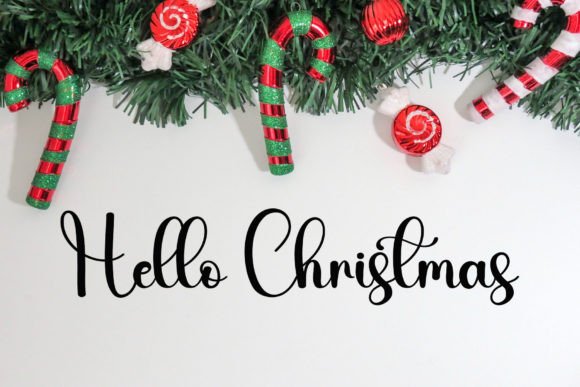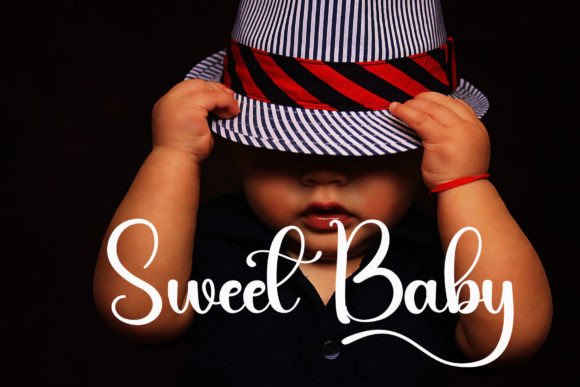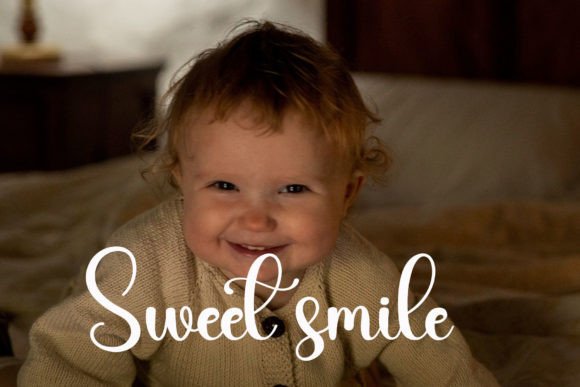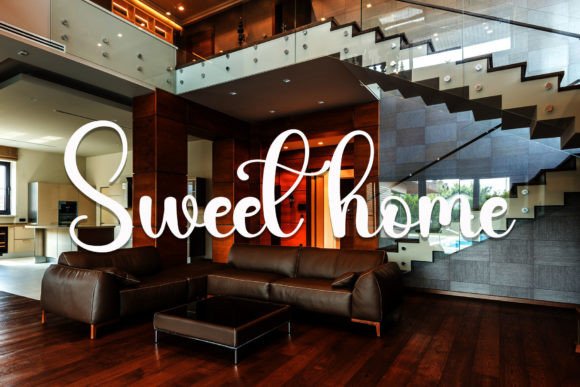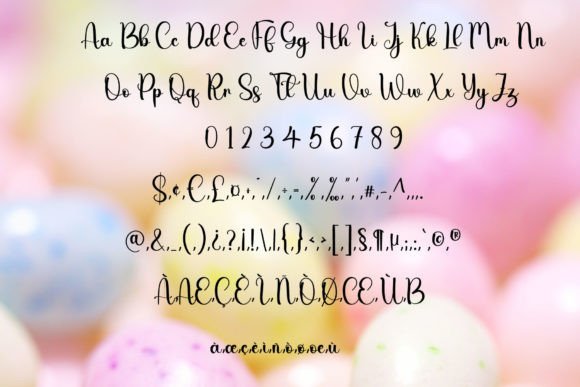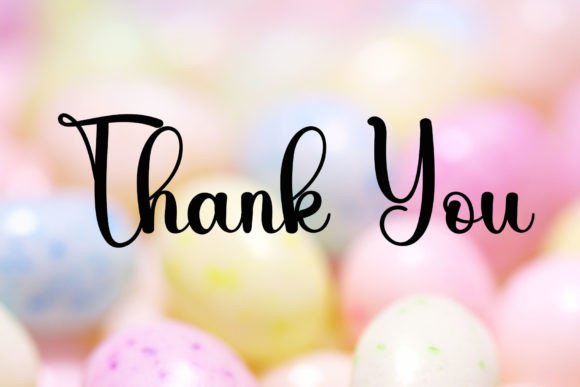
Candy Font: The Sweetest Addition to Your Design Projects
Are you looking for a font that can add a touch of luxury and sweetness to your design projects? Look no further than the Candy Font! This beautiful handwritten font is sure to make your designs stand out with its unique and playful characters that dance along the baseline.
What is Candy Font?
Candy Font is a sweet and beautiful handwritten font that is perfect for designers and crafters who want to add a touch of luxury to their projects. The font features characters that dance along the baseline, giving it a playful and whimsical feel. The font is highly legible and can be used for a variety of design projects, from branding and packaging to scrapbooking and crafting.
Key Features of Candy Font
- Handwritten font: Candy Font is a handwritten font that gives your designs a personal and unique touch.
- Luxury spark: The font’s playful and whimsical feel adds a luxury spark to any design project.
- Characters that dance along the baseline: The font’s unique characters dance along the baseline, making it a standout from other fonts.
- Highly legible: Despite its playful feel, Candy Font is highly legible and easy to read.
Uses of Candy Font
Candy Font is a versatile font that can be used for a variety of design projects, including:
- Branding and packaging: Use Candy Font to add a touch of luxury to your brand’s packaging and marketing materials.
- Scrapbooking and crafting: Add a personal touch to your scrapbooking and crafting projects with Candy Font.
- Wedding and event planning: Use Candy Font to create beautiful and unique wedding and event invitations.
- Social media graphics: Add a touch of sweetness to your social media graphics with Candy Font.
Benefits of Using Candy Font
Using Candy Font in your design projects can have several benefits, including:
- Unique and playful designs: Candy Font’s unique and playful characters can help your designs stand out from the crowd.
- Emotional connection: The font’s whimsical feel can help create an emotional connection with your audience.
- Flexibility: Candy Font can be used for a variety of design projects, making it a versatile addition to your font collection.
Tips for Using Candy Font
Here are some tips for using Candy Font in your design projects:
- Pair with neutral colors: Pair Candy Font with neutral colors to make the font stand out.
- Use in combination with other fonts: Use Candy Font in combination with other fonts to create visual interest.
- Experiment with different sizes: Experiment with different font sizes to create a unique and playful look.
Candy Font is a sweet and beautiful handwritten font that can add a touch of luxury to any design project. With its unique and playful characters, highly legible design, and versatility, Candy Font is a must-have for designers and crafters. Whether you’re creating branding and packaging, scrapbooking and crafting, or social media graphics, Candy Font is sure to make your designs stand out.